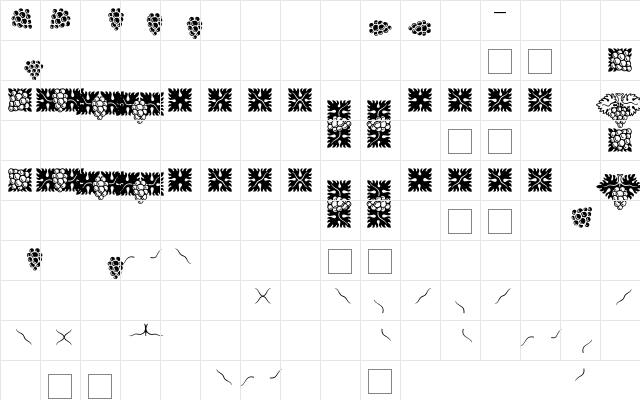
ASTYPE Ornaments WineGrape A
| Style | WineGrape A |
| Foundry | Andreas Seidel / astype |
| Designer | Andreas Seidel 2004 |
Design Context for ASTYPE Ornaments Typeface
ASTYPE Ornaments is built around its visual character rather than neutral utility — its distinctive forms are designed to make an impression at display sizes.